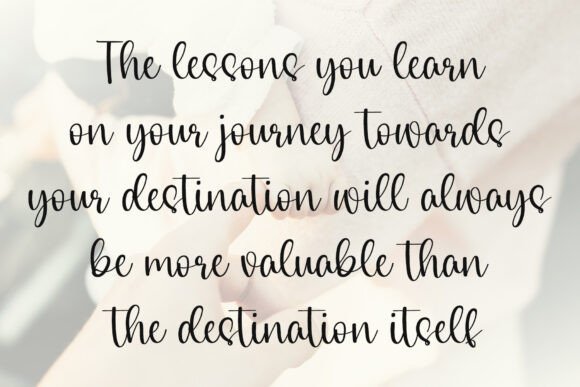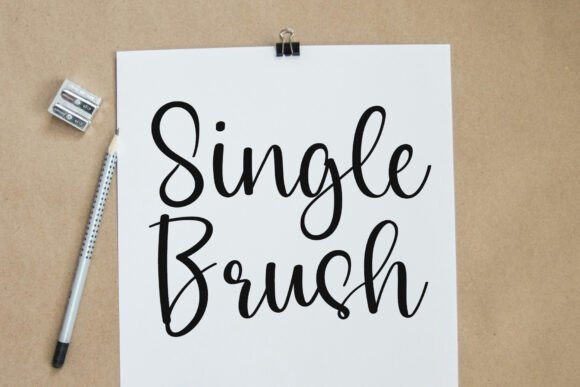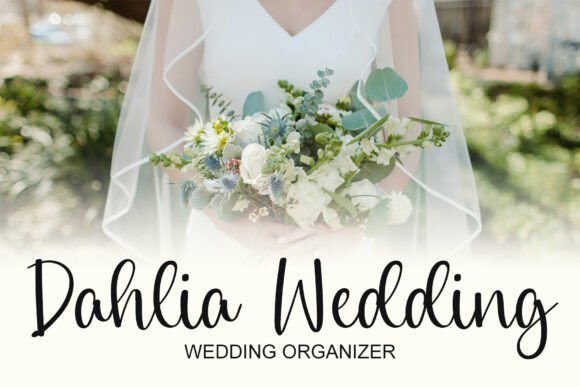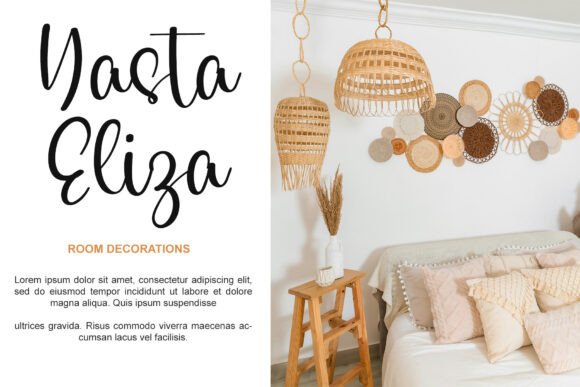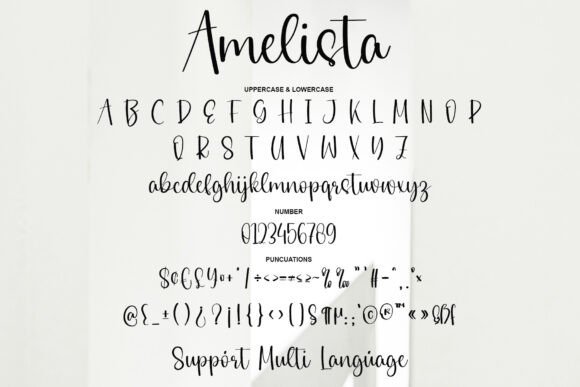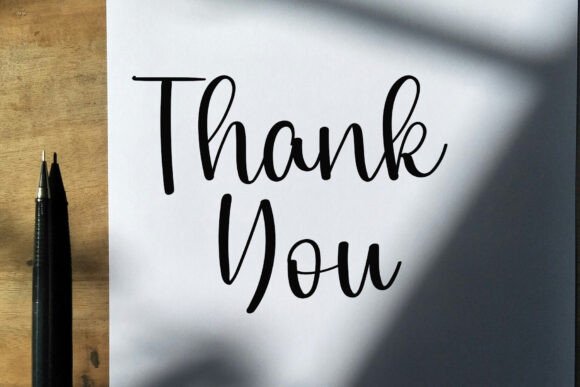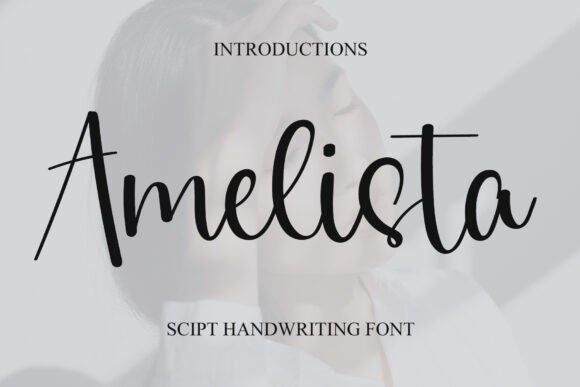
Unlock the Timeless Elegance of Your Designs
There’s something magical about the moment when a design comes together – the words flow effortlessly, the colors harmonize, and the overall aesthetic transports you to a world of beauty. This is the moment when the right font can make all the difference. For designers seeking to elevate their projects, the Amelista Font is a game-changer.
With its stylish, handwritten feel and contemporary atmosphere, this font is inspired by the timeless classic calligraphy. It’s designed to enhance the beauty of your projects, adding a touch of sophistication and elegance. Whether you’re working on a logo, a wedding invitation, or a marketing campaign, the Amelista Font is sure to leave a lasting impression.
Amelista Font Key Features
- Unique Characteristics: The Amelista Font boasts a unique blend of elegance and playfulness, with intricate details and subtle nuances that set it apart from other fonts.
Amelista Font Review
As a designer, I was excited to try out the Amelista font. Overall, I have mixed feelings about this font.
- Unique style: Amelista font has a distinct, elegant look that can add a touch of sophistication to any design project.
- Good for headings: The font’s bold and cursive features make it perfect for headings and titles.
- Customizable: Amelista font comes in various weights and styles, allowing designers to experiment with different combinations.
- Readability issues: In smaller font sizes, Amelista can become difficult to read, especially in body text.
- Lack of consistency: The font’s irregularities and swashes can sometimes make it look inconsistent or hard to typeset.
- Not ideal for body text: Due to its ornate design, Amelista is best suited for headings and titles rather than body text.
Overall, I think Amelista font is a great choice for designers looking to add a touch of elegance to their projects. However, it’s essential to use it thoughtfully and strategically to avoid readability issues. With careful selection and implementation, Amelista can be a valuable addition to any design toolkit.
Getting the Most Out of Amelista Font
To get the most out of the Amelista Font, use it for:
Headings and titles
Body text in creative projects
Designing feminine and elegant graphics
Amelista Font is commonly used for:
Birthday invitations
Wedding stationery
Branding and marketing materials